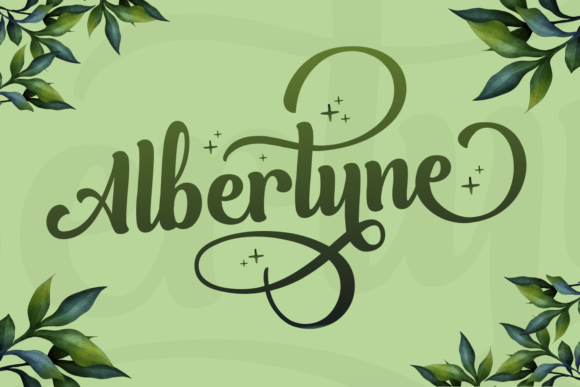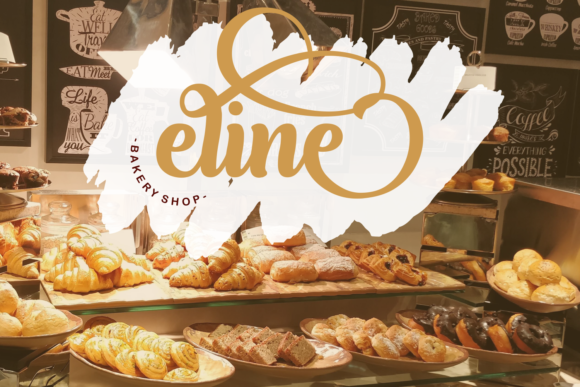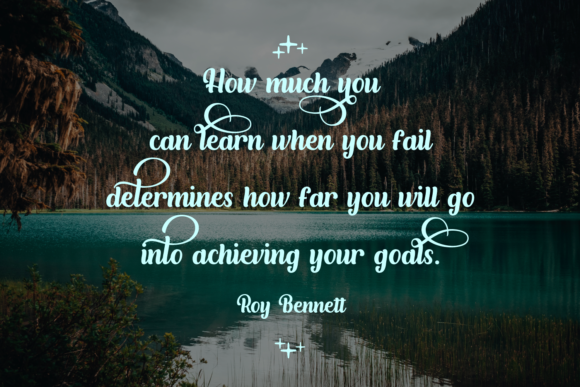
Albertyne Font
About Albertyne Font
Albertyne is a playful, sweet and gorgeous hand-written font featuring luscious swashes. It’s perfect for designers, quotes, invitations, social media posts and much more! Ignite your creativity with this fun font.